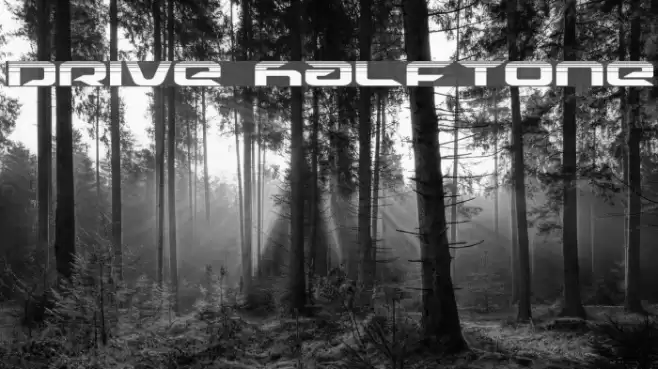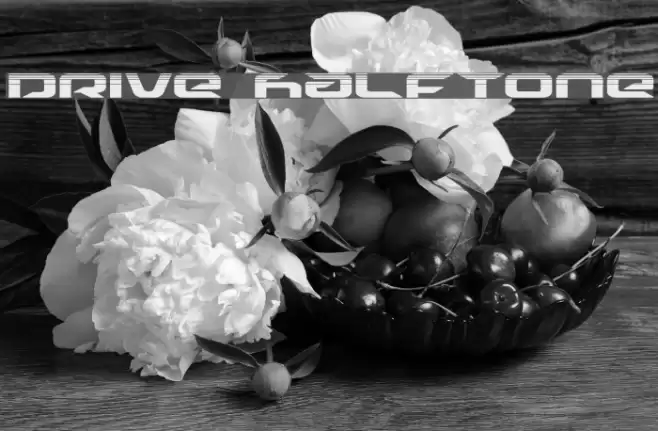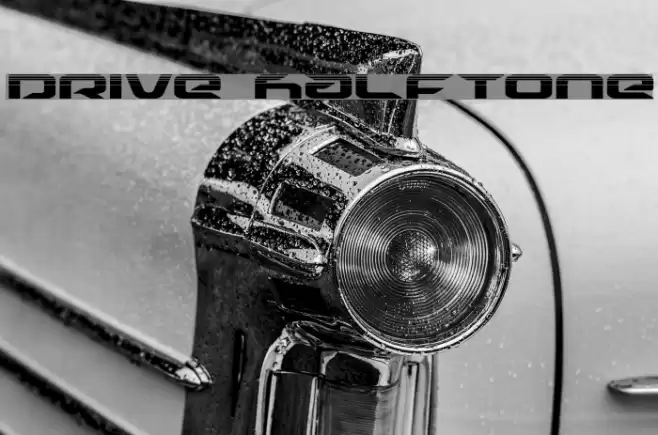
Drive Halftone Font
Drive Halftone Description
This font features a futuristic and dynamic design with a halftone effect that gives it a sense of motion and energy. The characters are bold and wide, with a unique pattern of horizontal lines that create a sense of depth and texture. The uppercase and lowercase letters maintain a consistent style, with sharp angles and a geometric structure that enhances its modern appeal. The numbers and special characters follow the same design principles, ensuring uniformity across all glyphs. This font is ideal for projects that require a bold and eye-catching typeface with a modern twist.
A futuristic, bold font with a halftone effect and geometric structure from Uncategorized fonts.
- Proposed Projects: Ideal for sci-fi themed designs, video game titles, tech branding, and futuristic posters.
- Width: Expanded